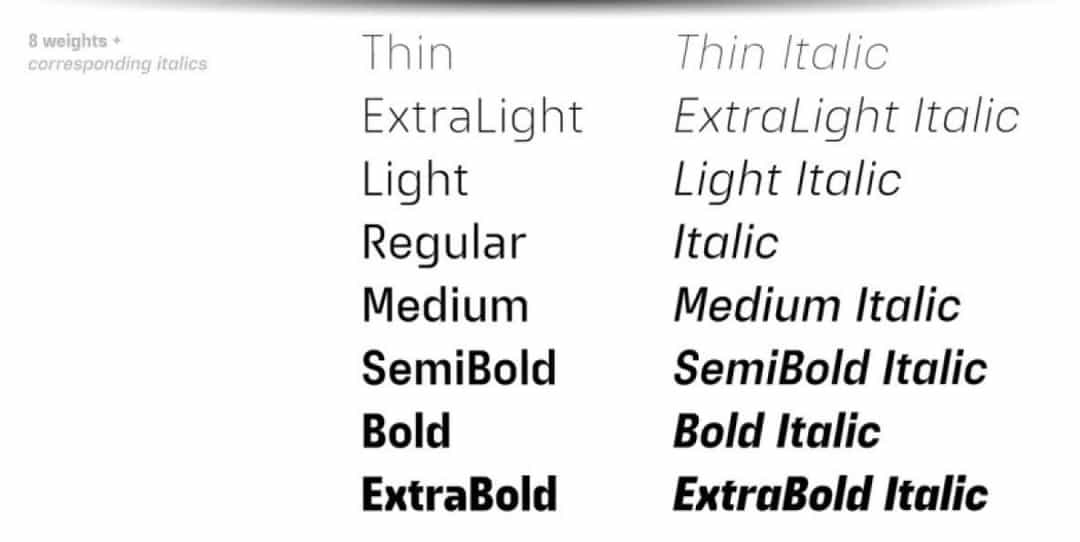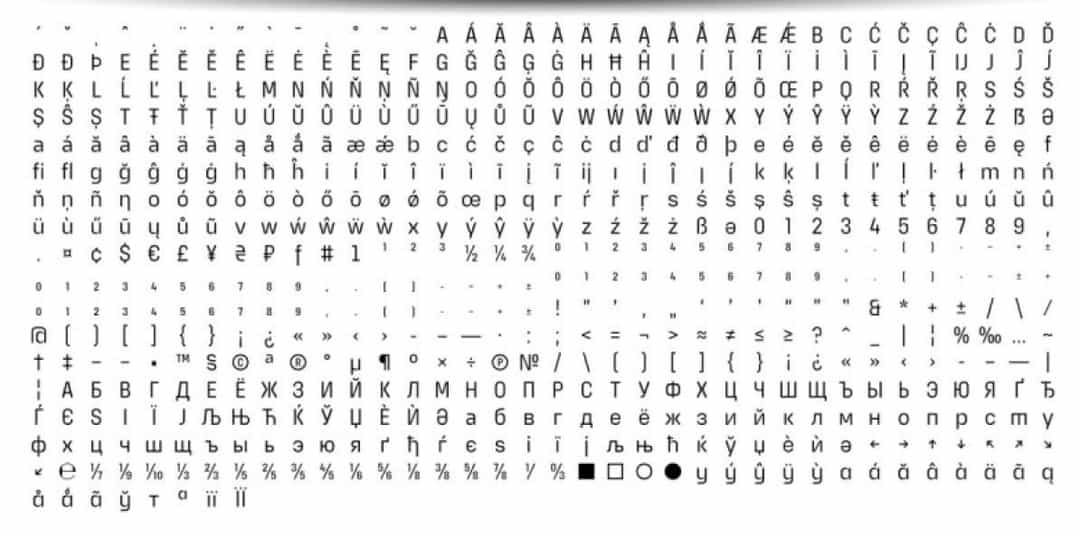
Discover Extatica Font, part of the Sans Serif Display collection—a versatile and unique font perfect for adding a personal touch to your projects. Download it for free and enjoy crafting designs with style, from invitations to social media posts. This font is available exclusively for personal use, giving you the freedom to create without limits. Unlock your creativity with Extatica Font today!
Extatica is an innovative geometrically-inspired display font with slim capitals, available in eight weights with their respective italics featuring stylistic alternatives as well as OpenType features. The set of glyphs include most European Latin-based languages as well as popular languages using Cyrillic script.